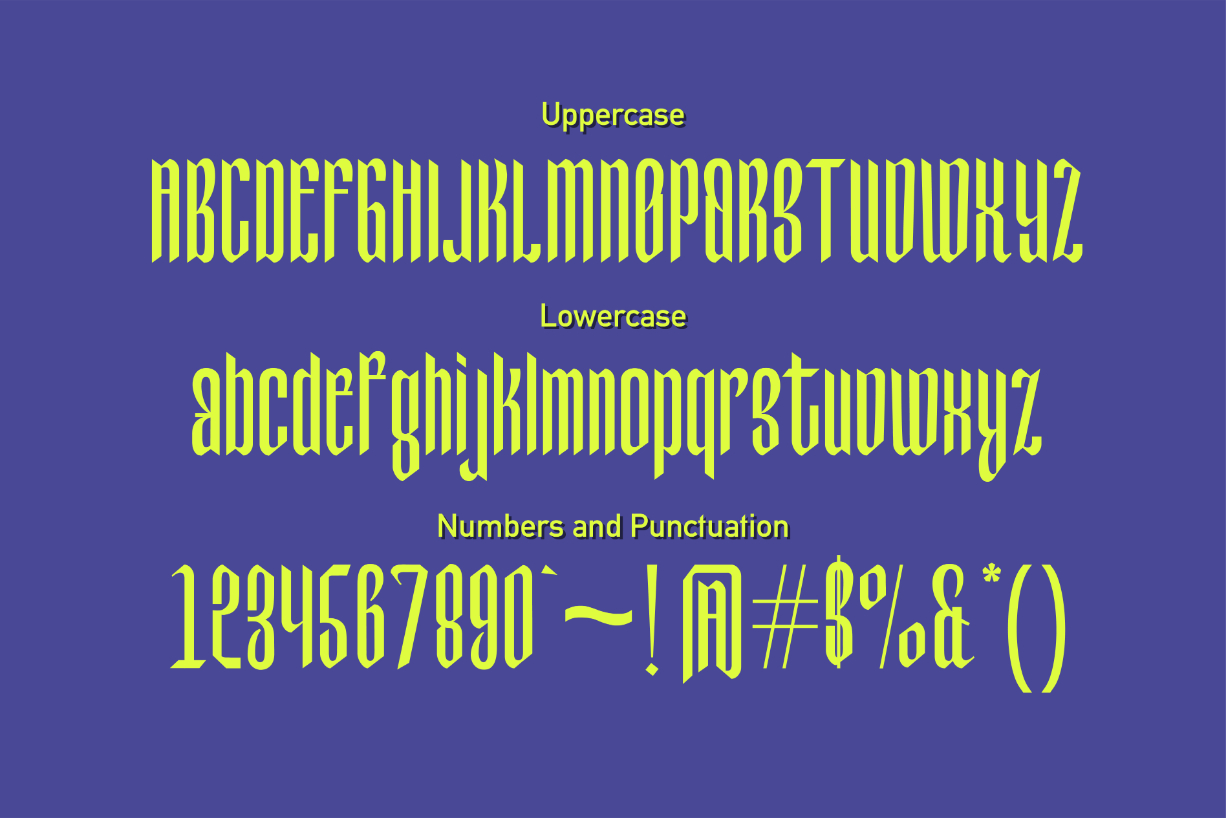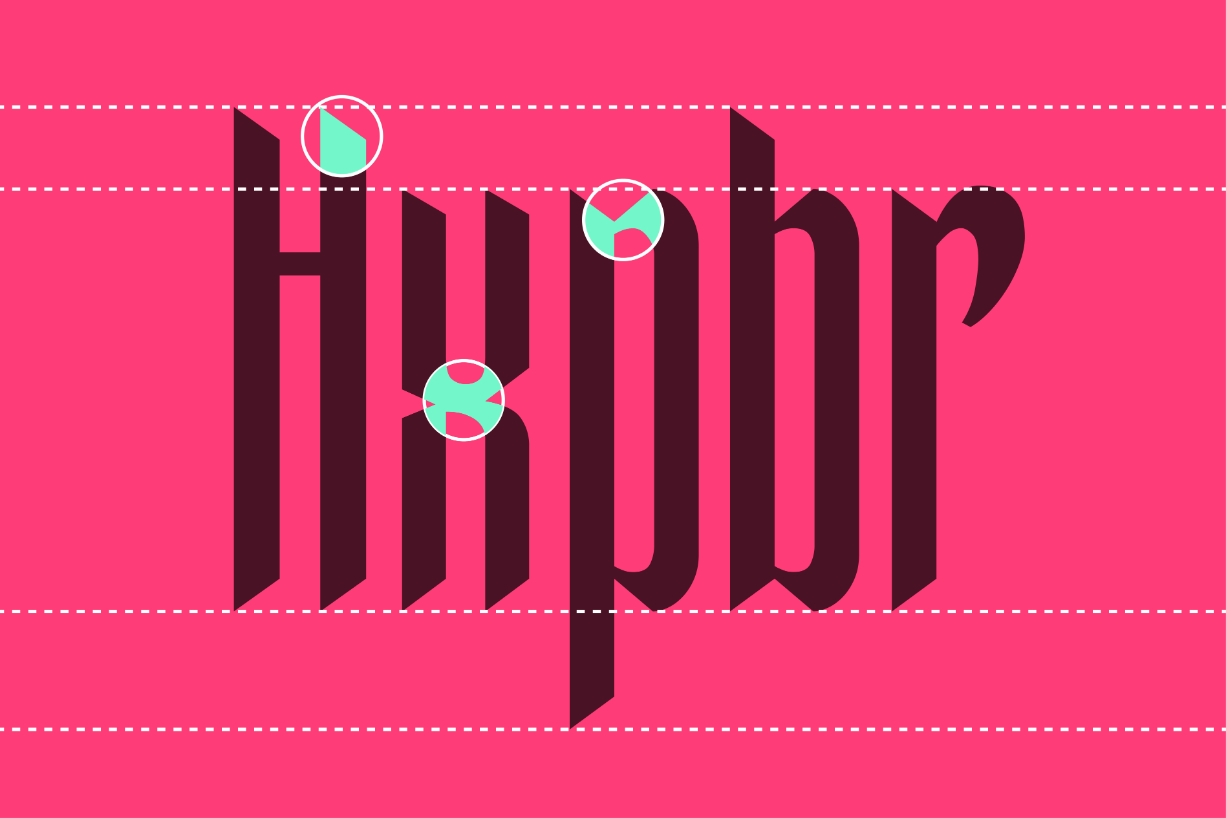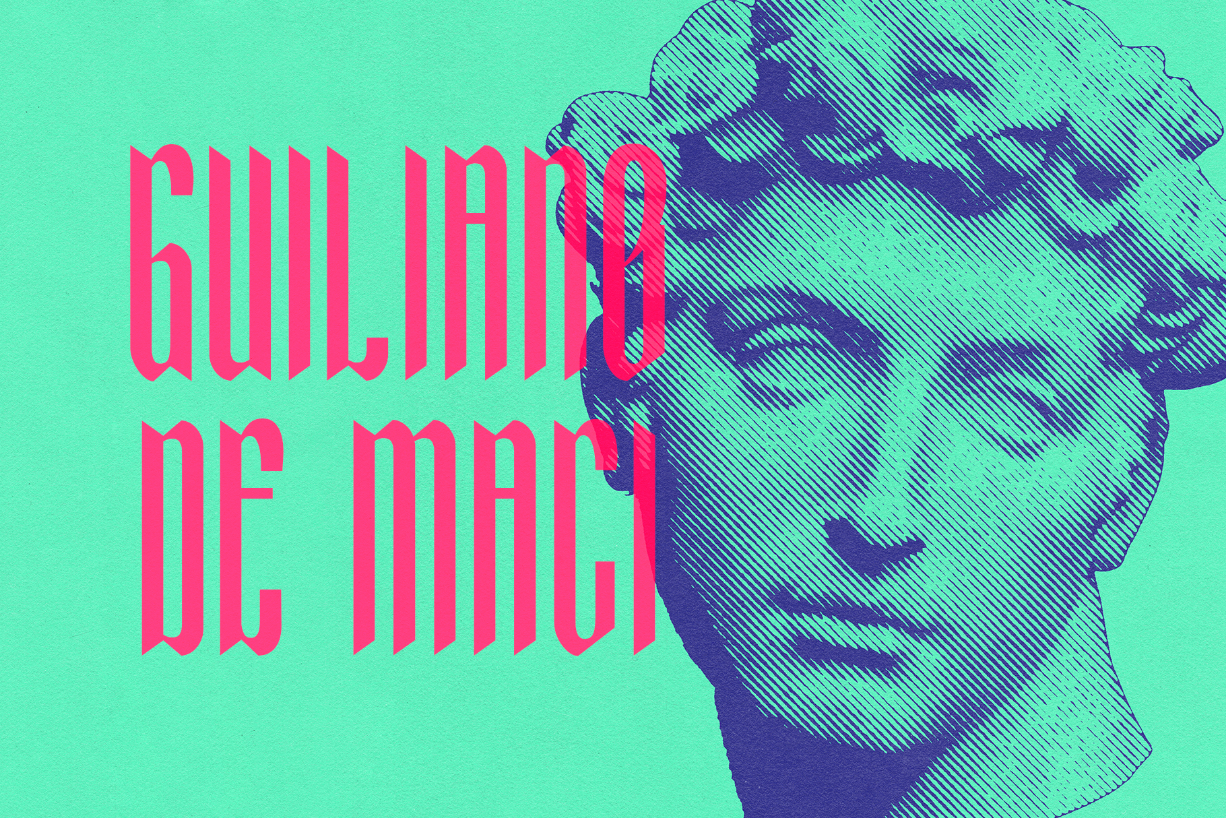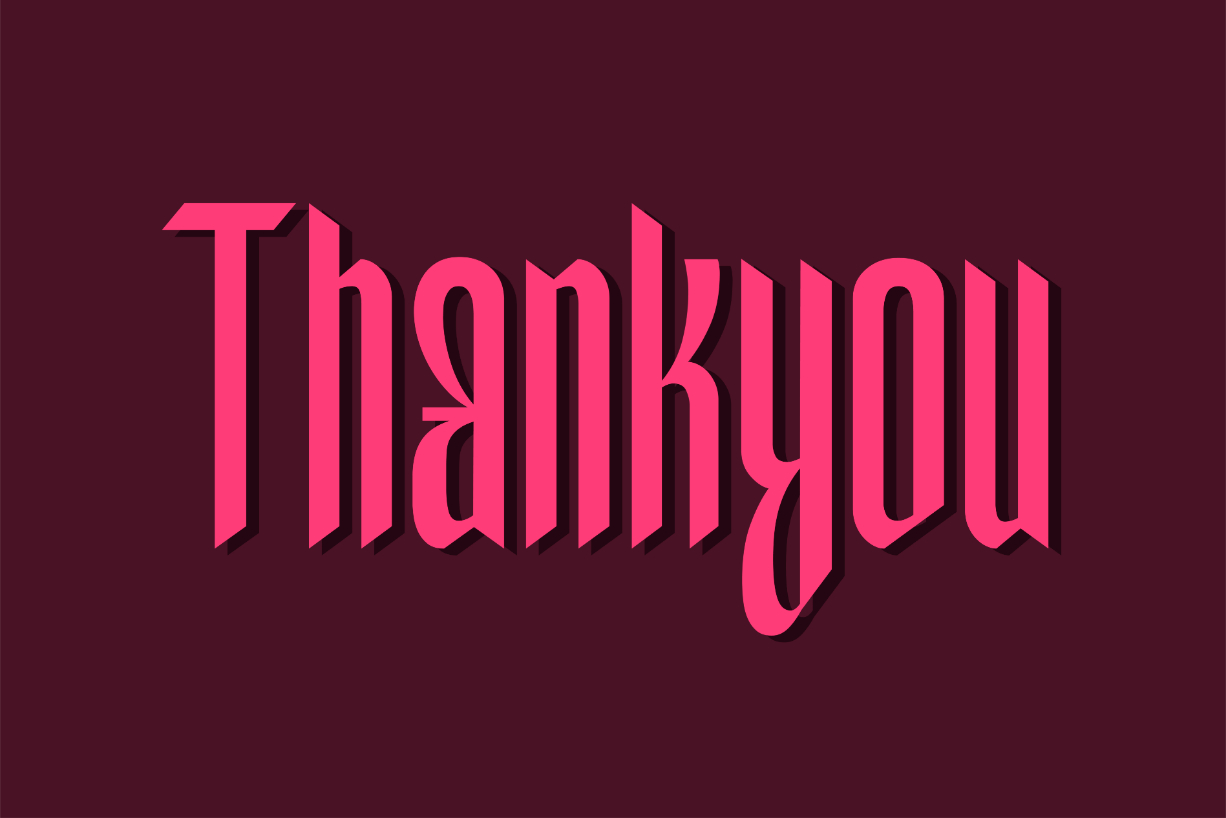
Tall Grass Font
About Tall Grass Font
Tall Grass a sophisticated blackletter font. Use this gorgeous and unique font to bring any DIY project to life!